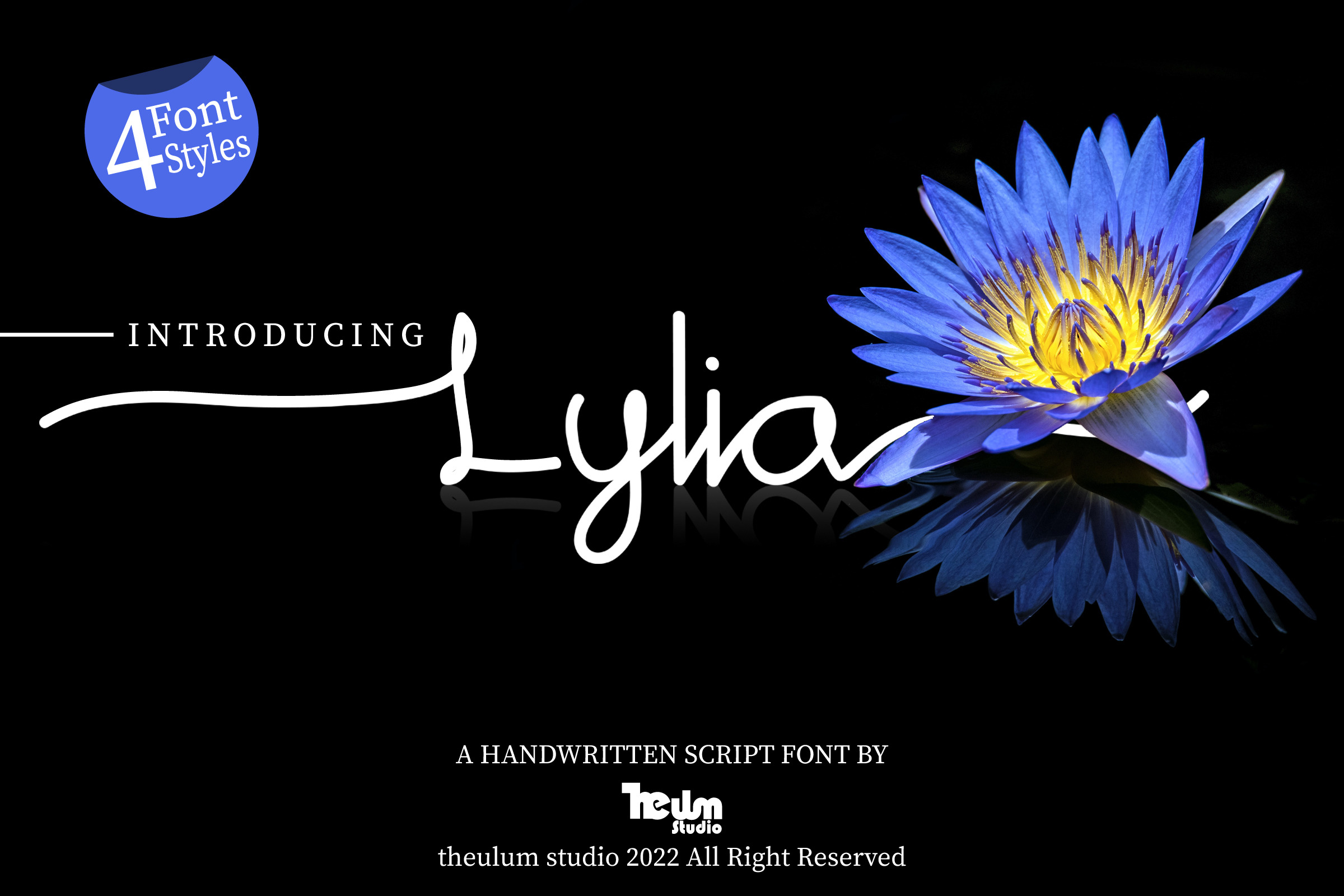
Lylia - Stylish Script Font
Lylia is a stylish script font inspired by the beauty of lily flowers. It looks stunning on wedding invitations, thank you cards, quotes, greeting cards, logos, business cards, and every other design which needs a handwritten touch.
- 4 font styles
- Stylish alternate for every alphabet